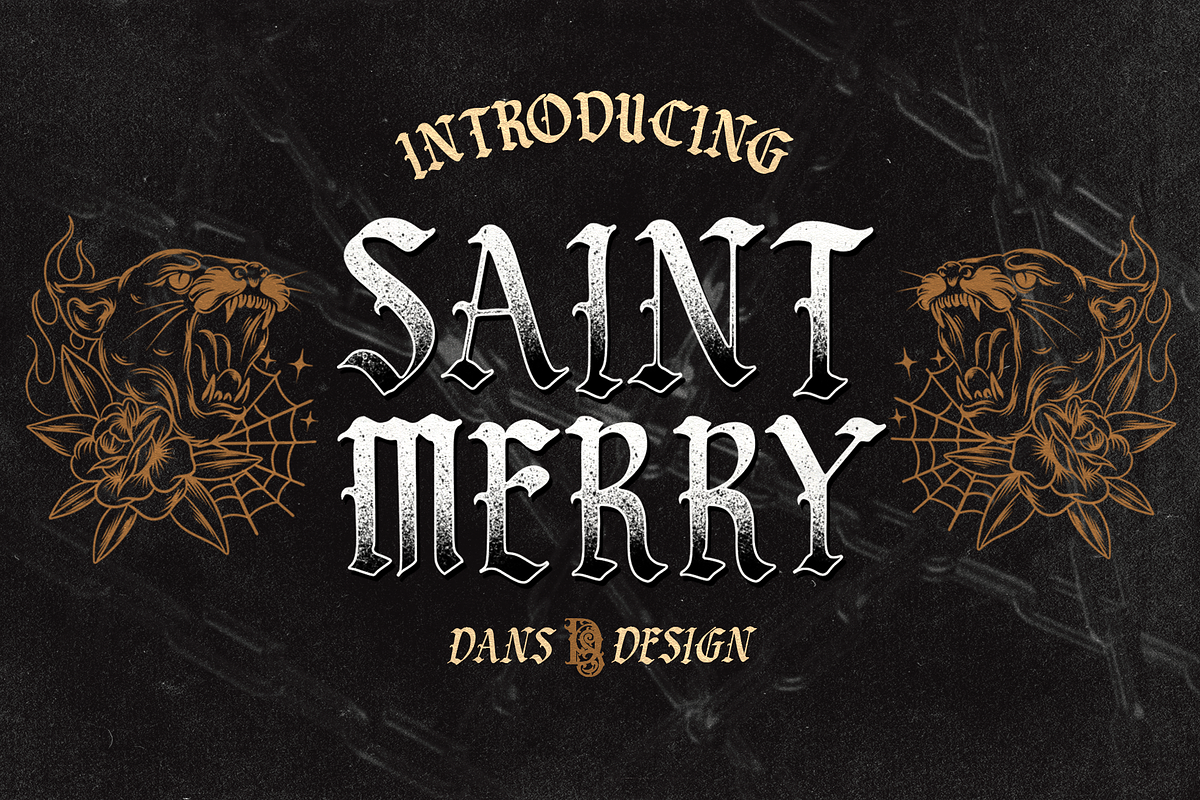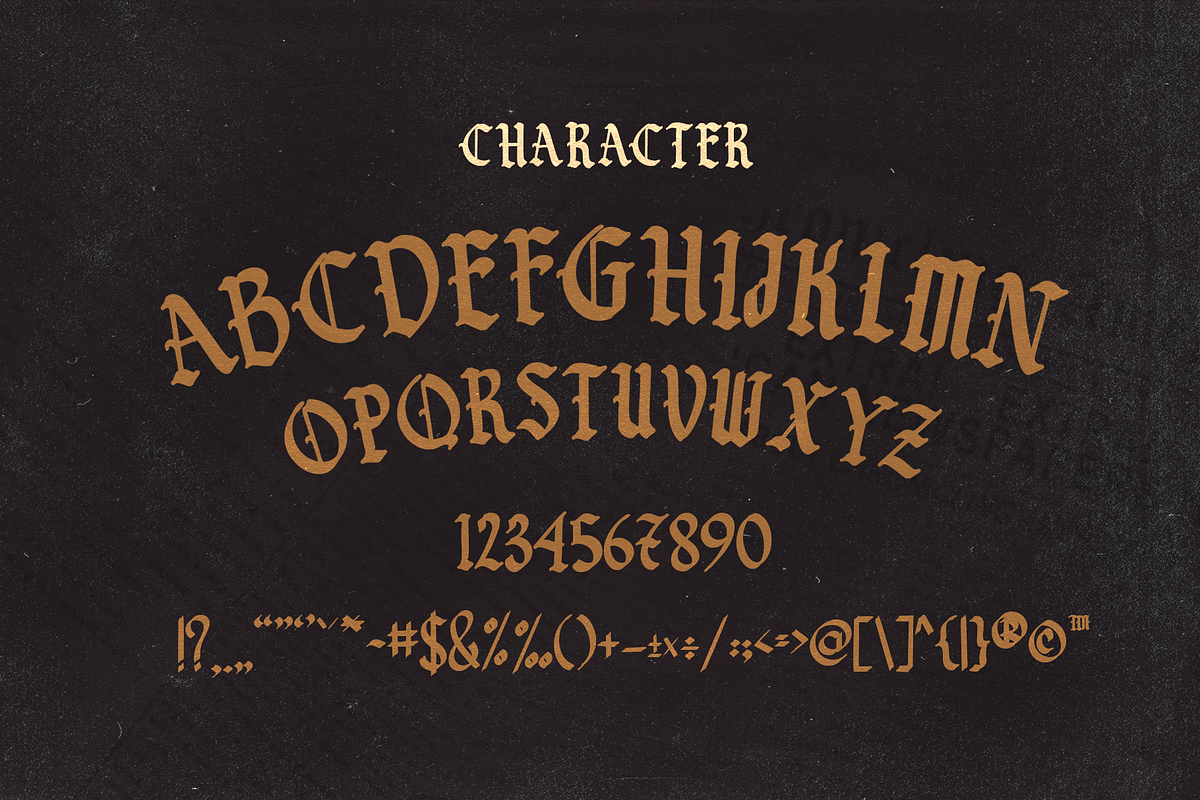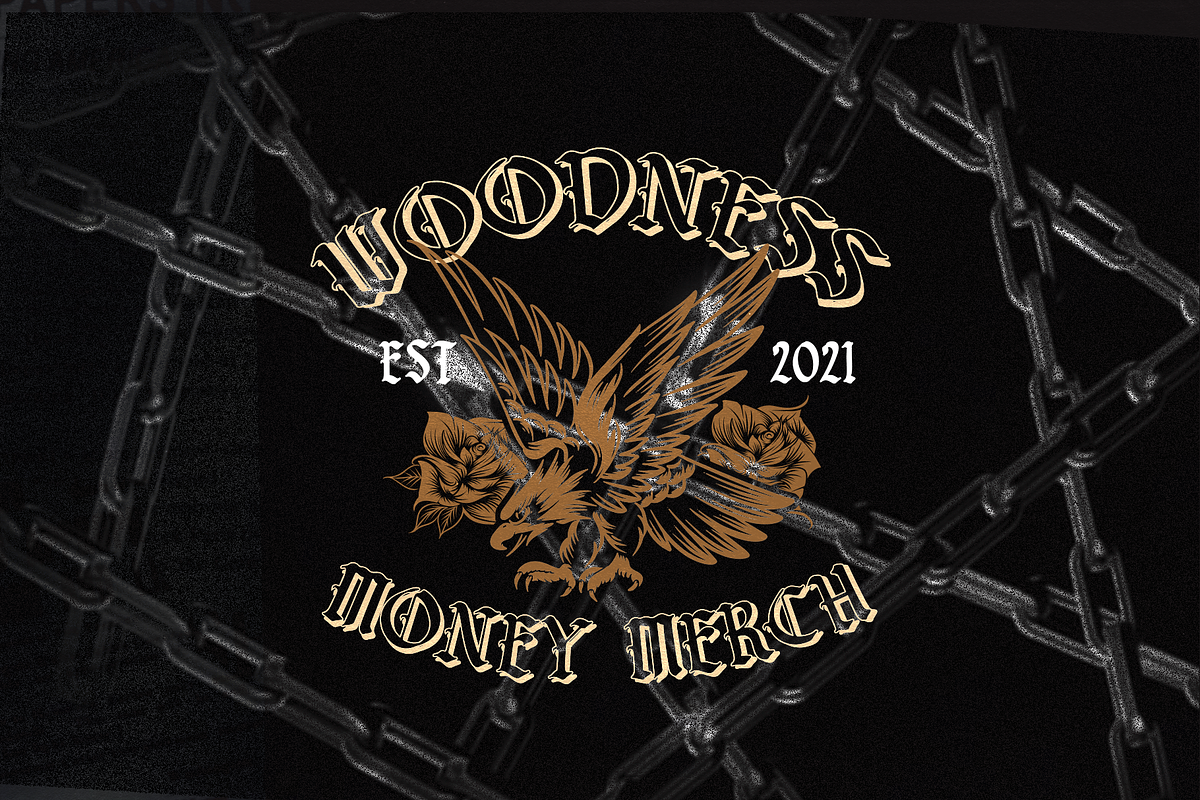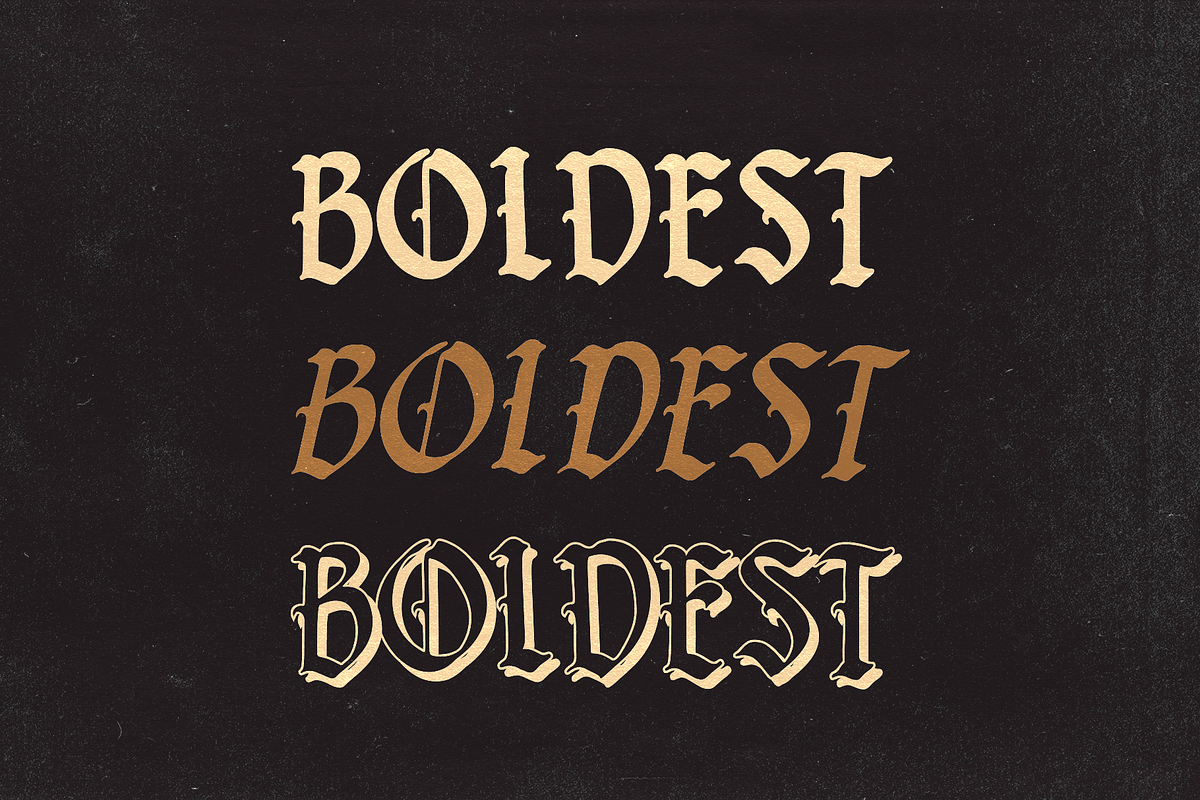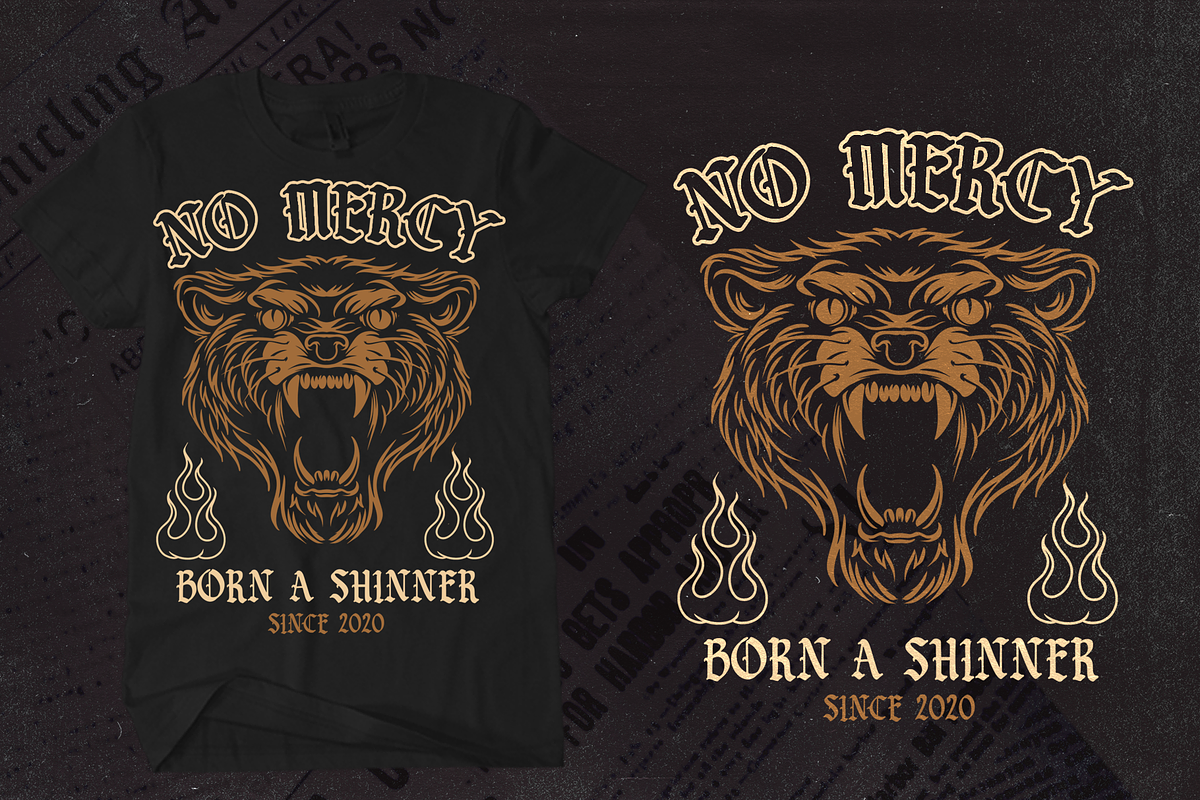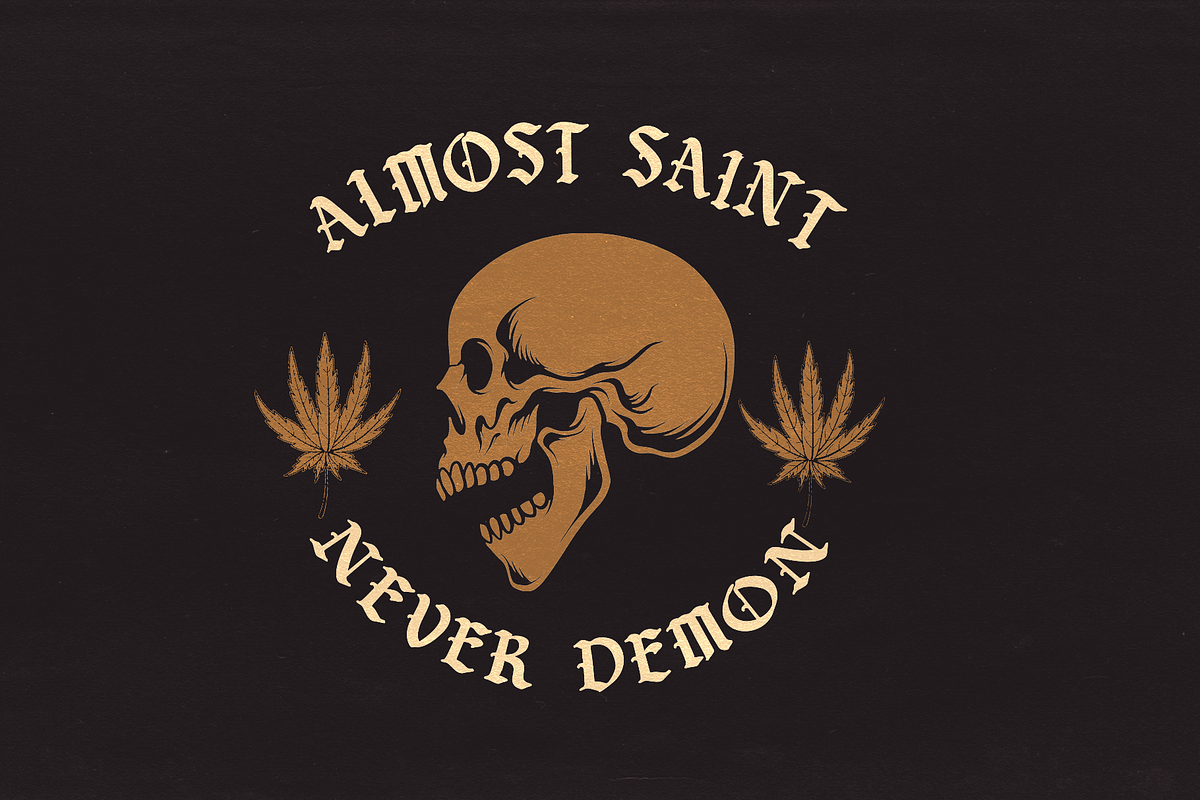
SAINT MERRY Vintage blackletter
Dansdesign Proudly present SAINT MERRY Vintage blackletter font, This font is made with references to various letters that I combine and design with my style.
SAINT MERRY are great and usefull for product logo, poster title, headline, packaging, badge, wedding card logo, clothing brand logo, Vintage design and much more